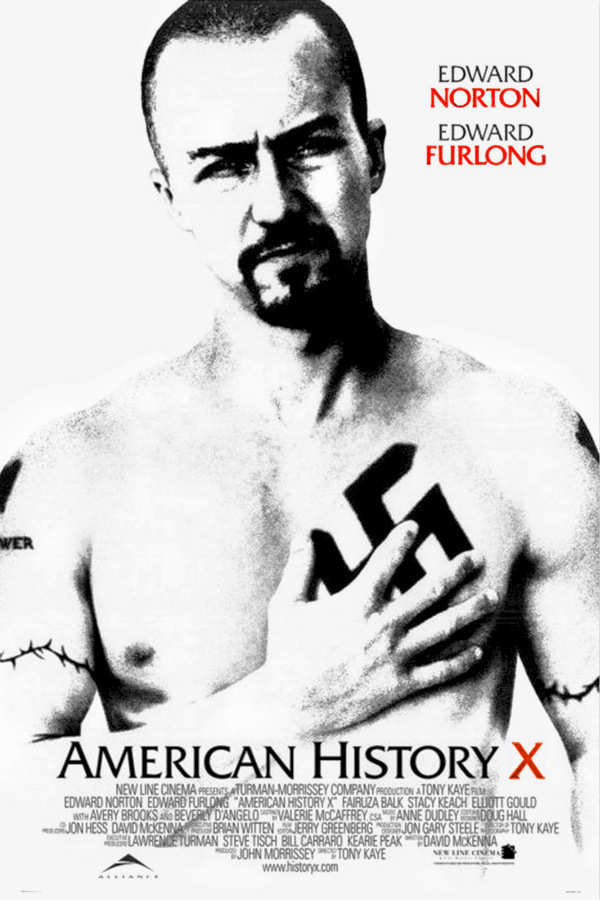
American History X Font
CrimeAmerican History X is a 1998 drama film that explores the themes of racism and white supremacy through the story of a former neo-Nazi who tries to prevent his younger brother from going down the same path. The film stars Edward Norton and was directed by Tony Kaye.
The movie poster features a font that closely resembles Friz Quadrata, a serif typeface designed by Ernst Friz and Victor Caruso. You can find more information about the typeface here.